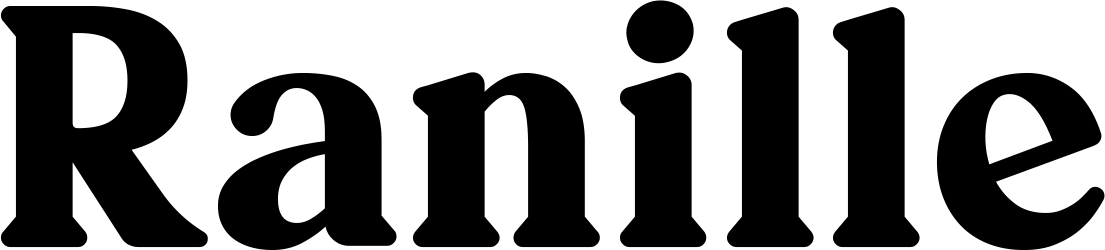
Ranille Font
Resource Boy is honored to present you with another beautiful serif font. It’s Ranille, a bold and formal font with a classic aura. There are so many areas where you can use Ranille including branding and logotypes, posters, signs, magazine covers, apparel design, and a load of other things.